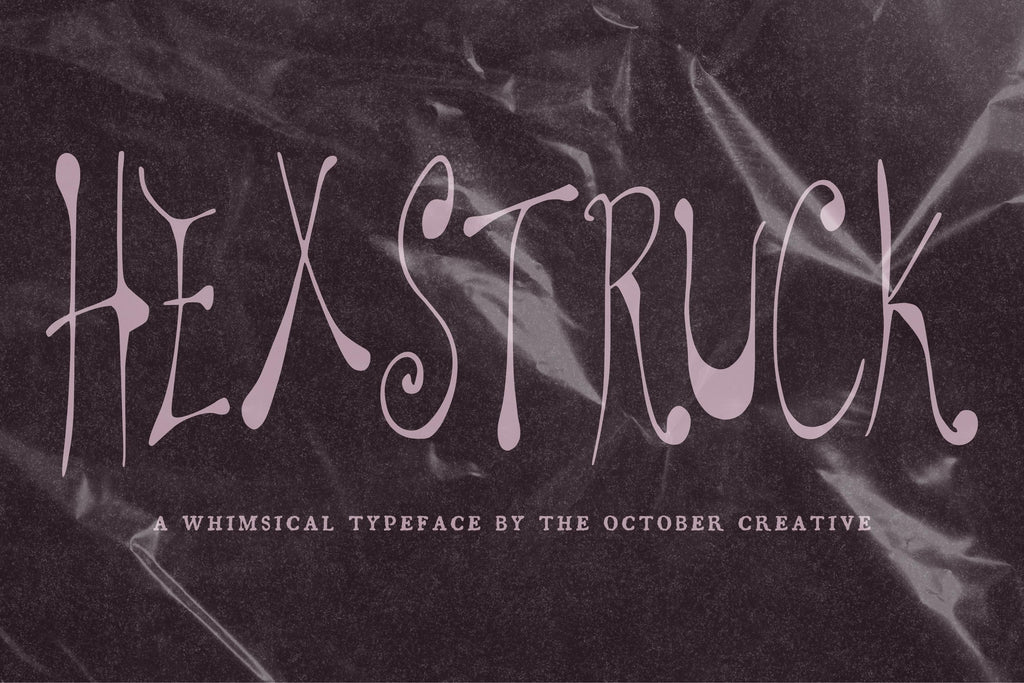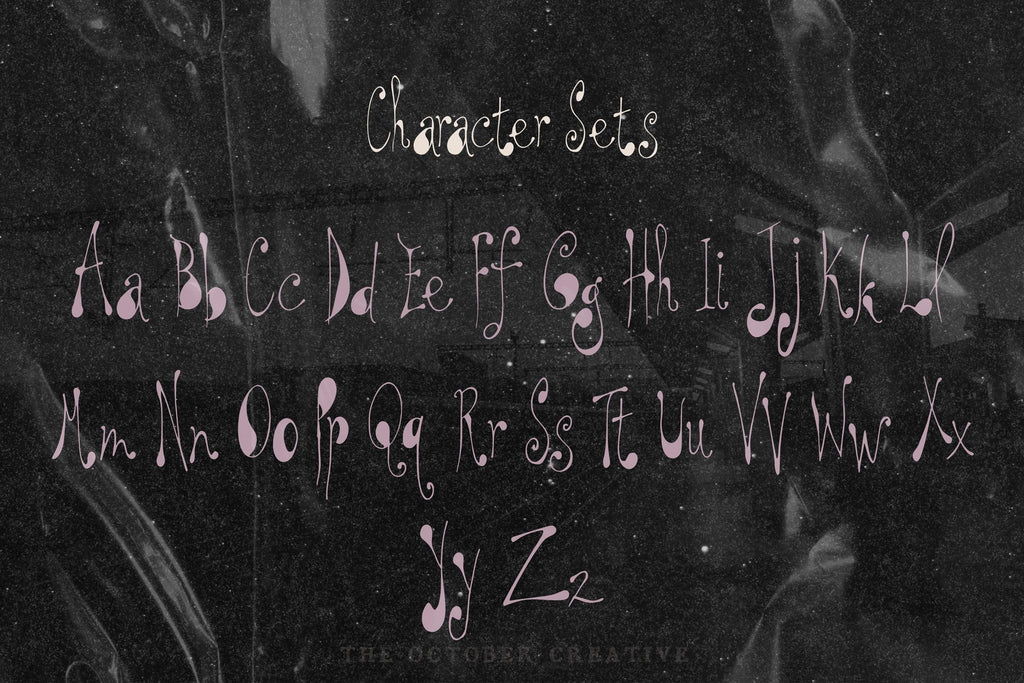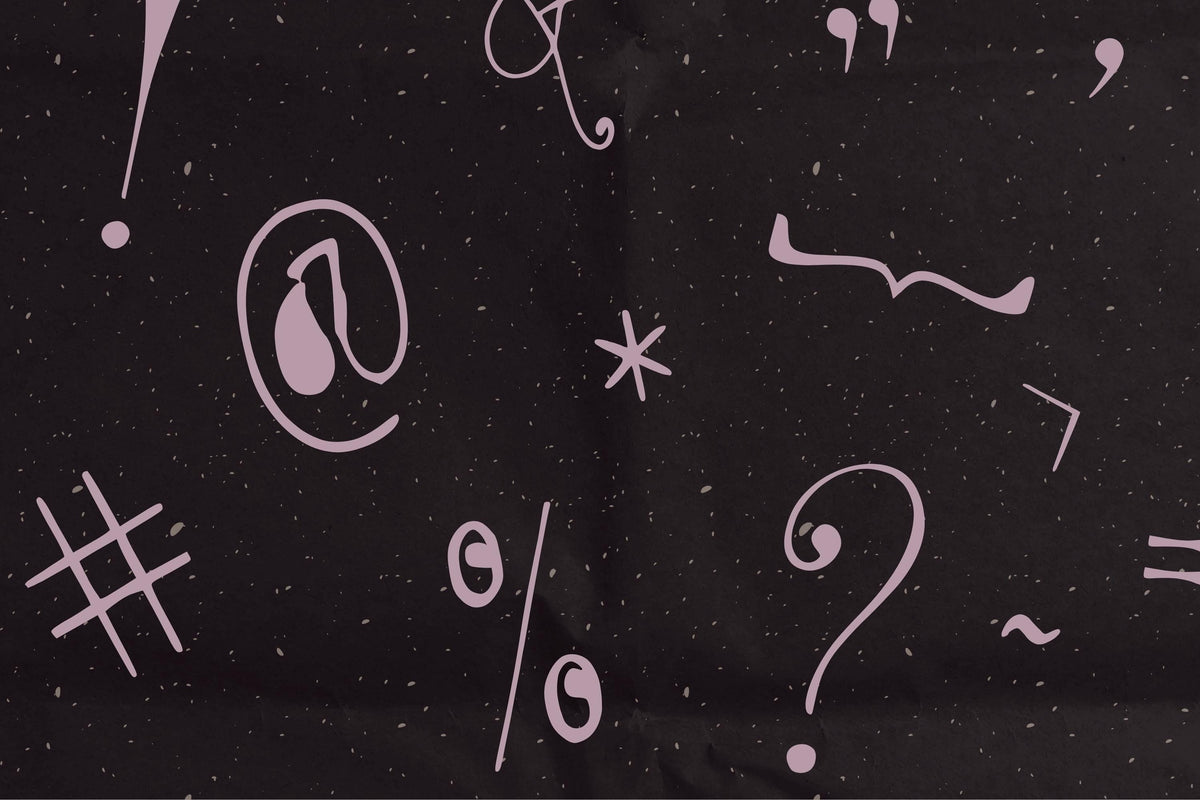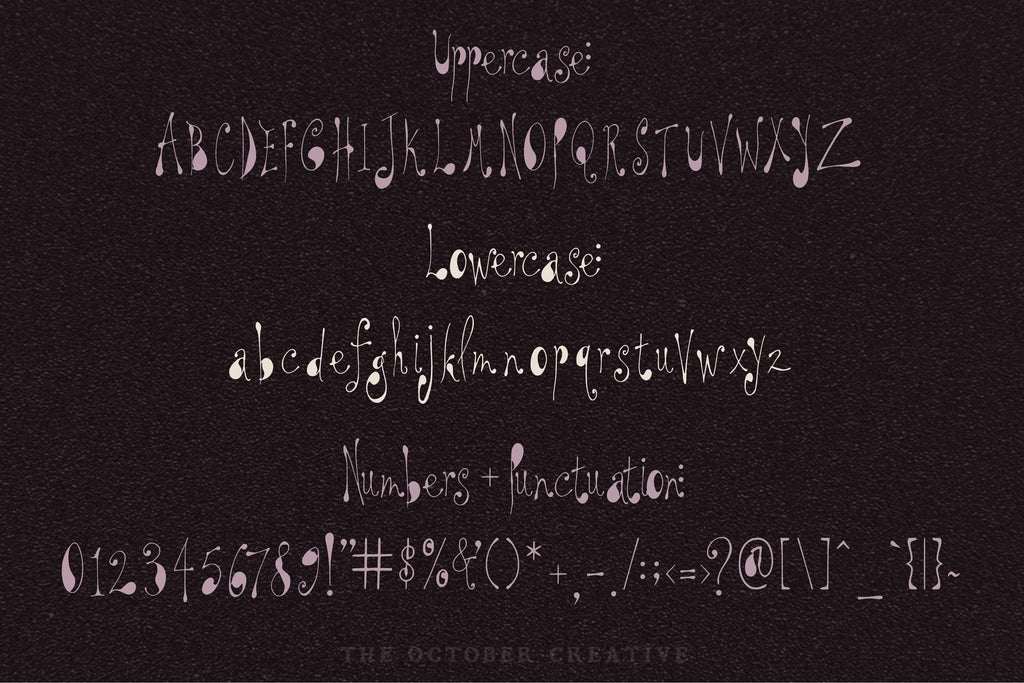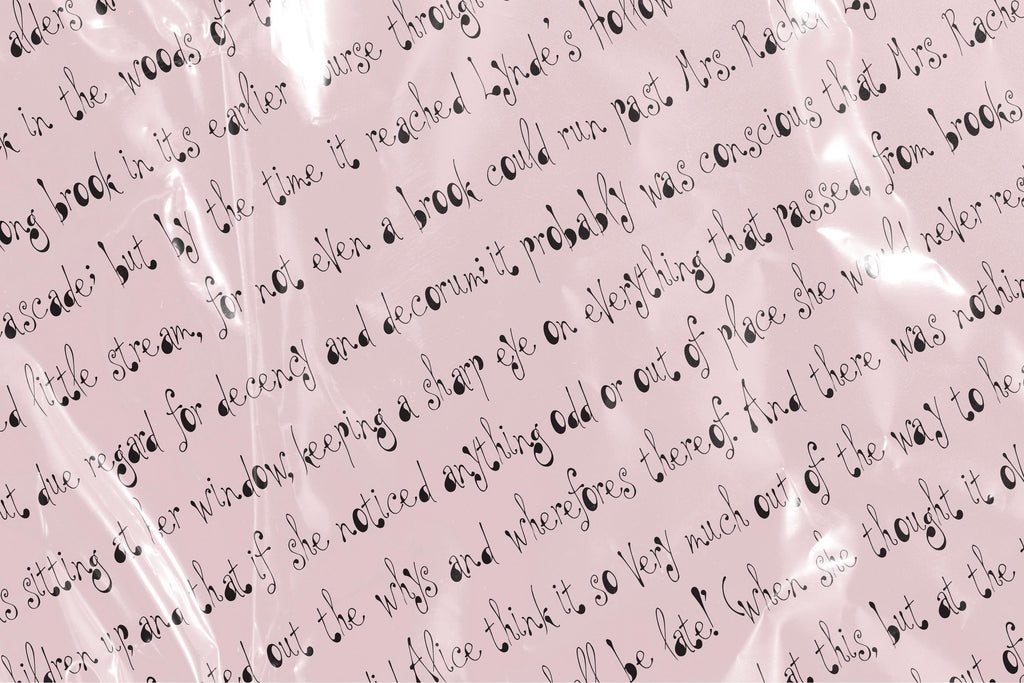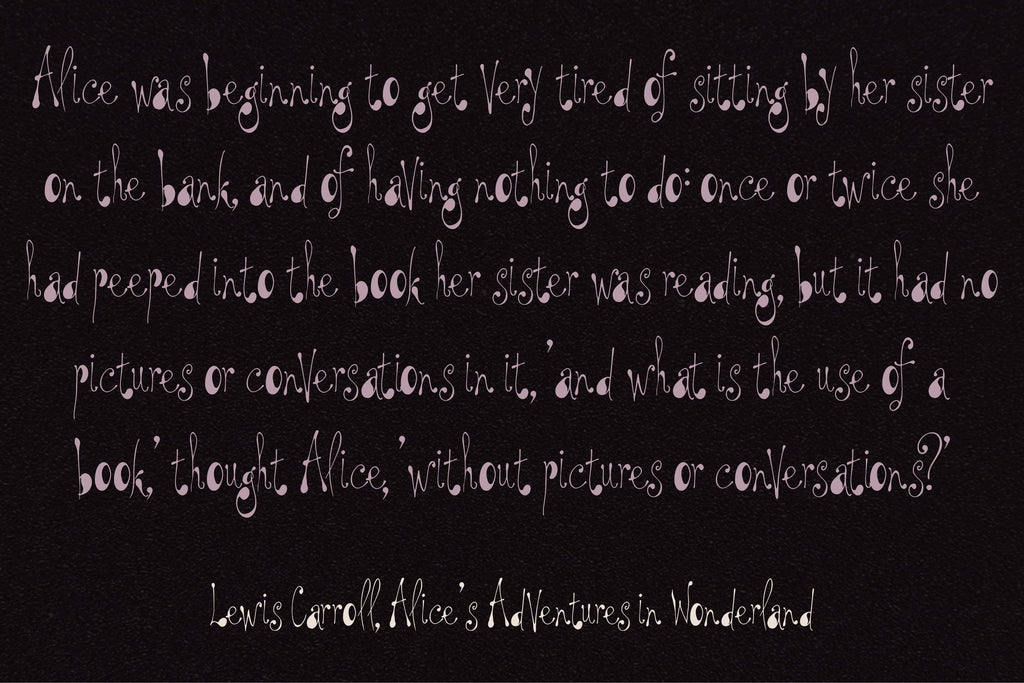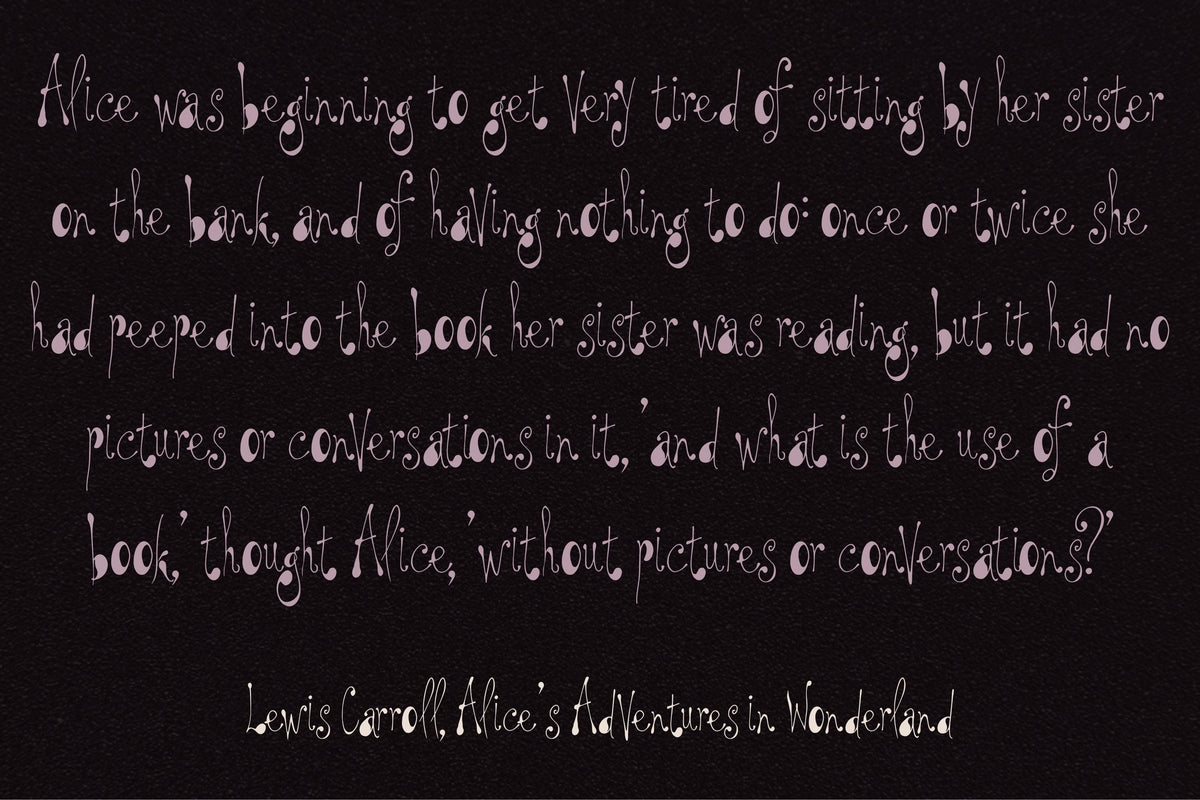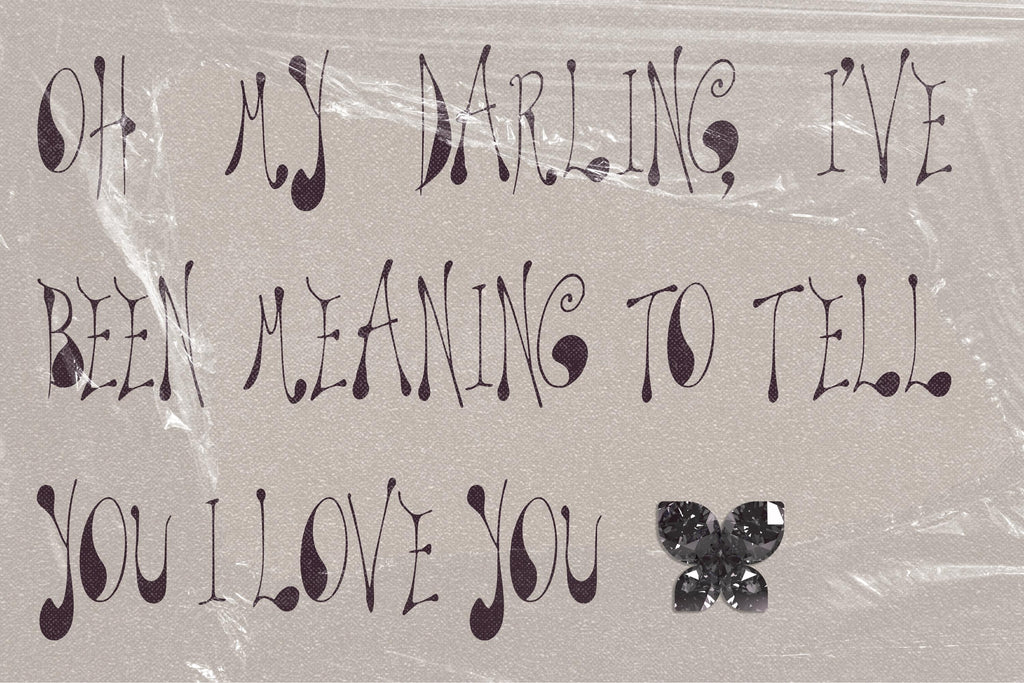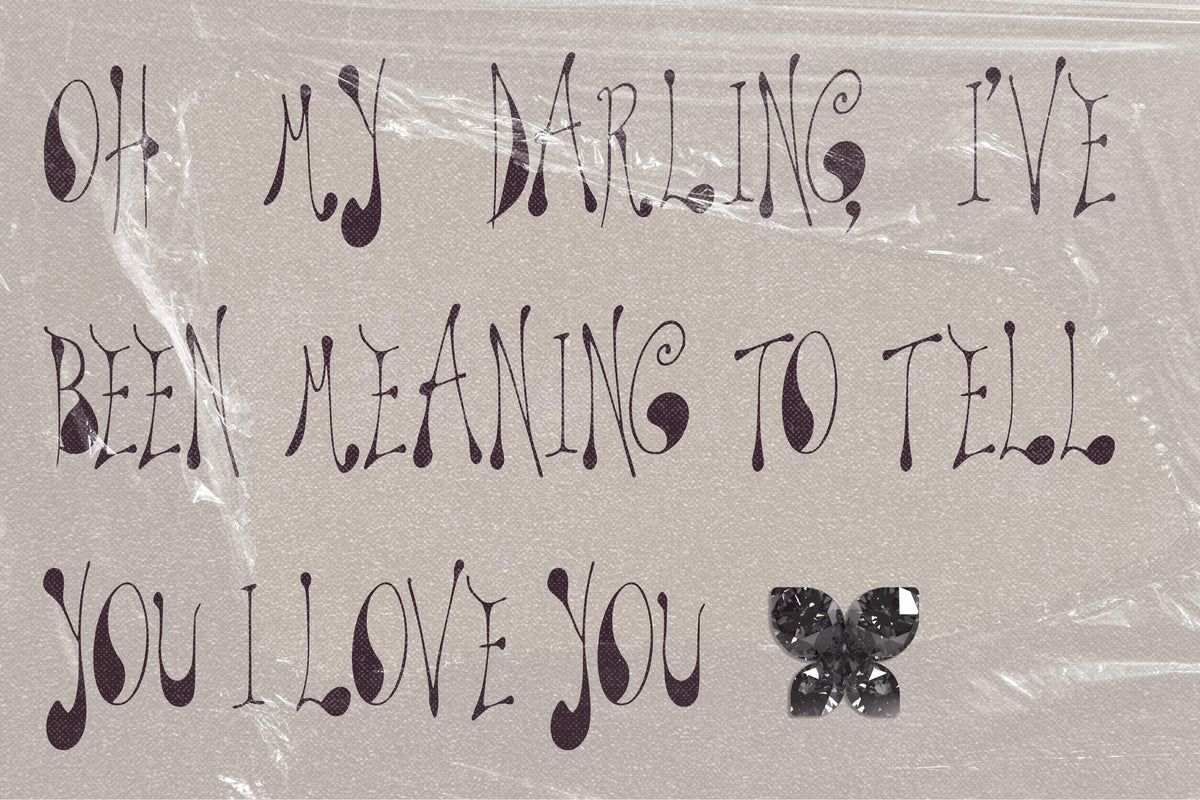
Hexstruck Font
Hexstruck adds sharp little spikes and an endearing unevenness to your lettering. Try it on tarot card titles, potion labels, and witchy journal pages that could use a little extra mischief.